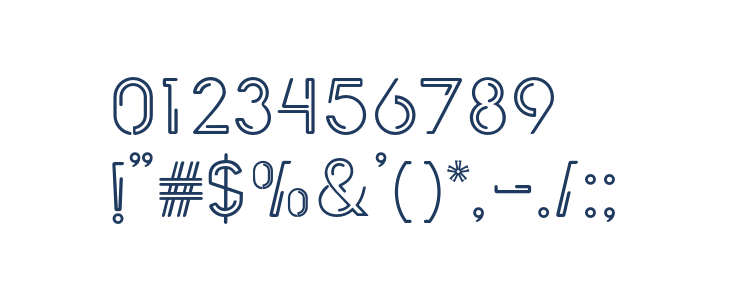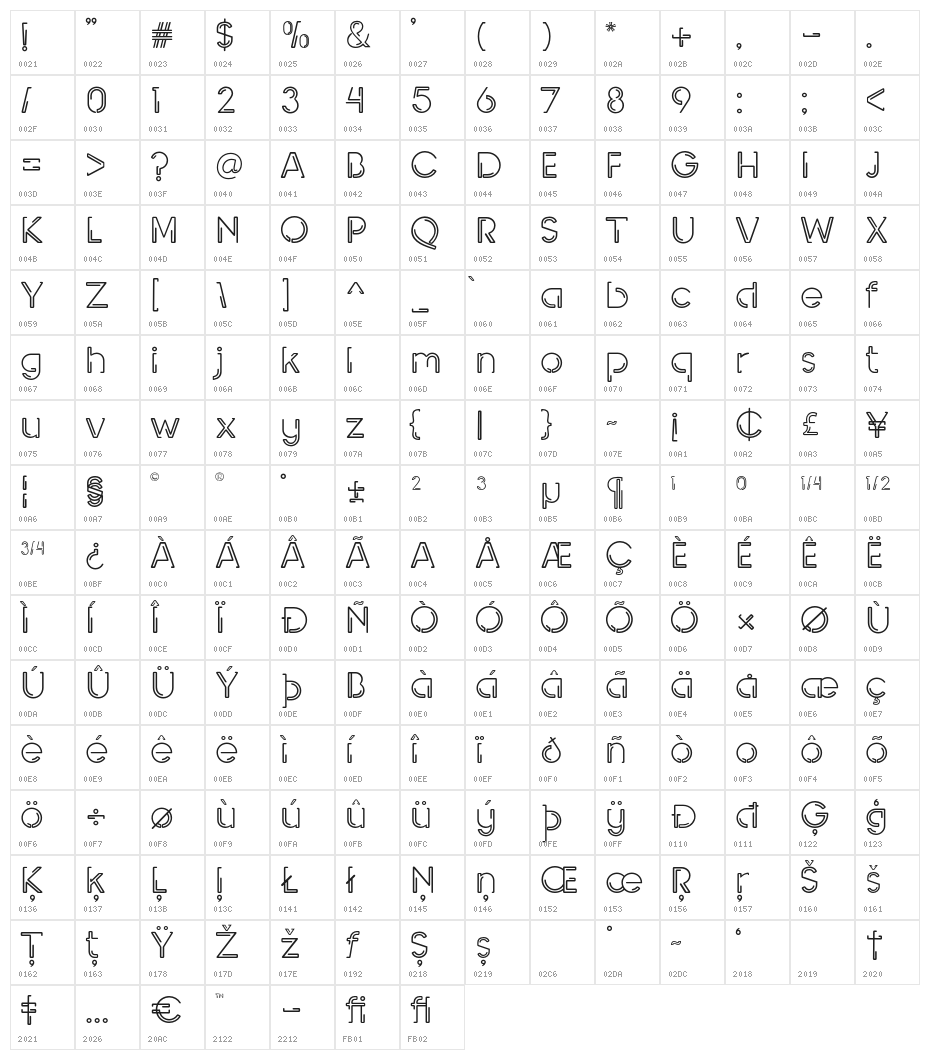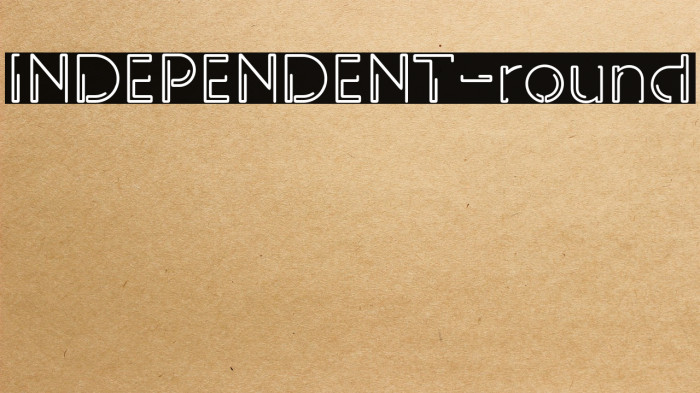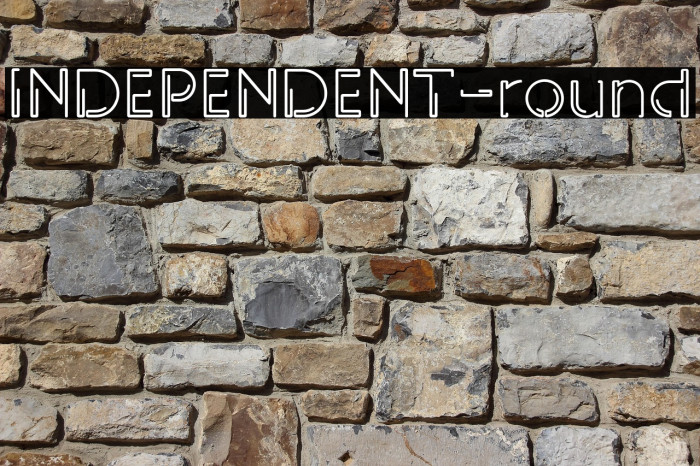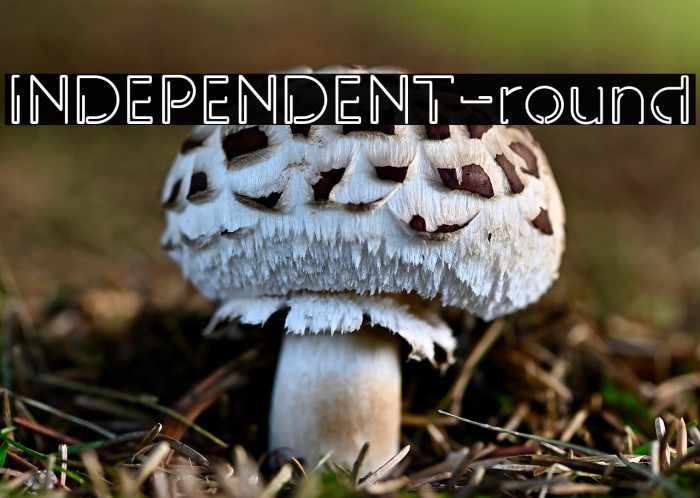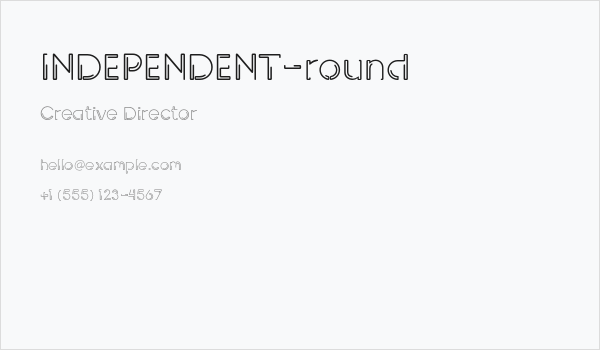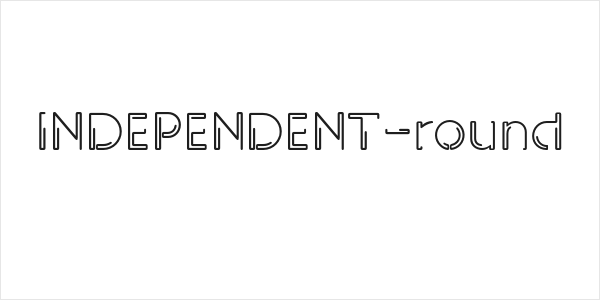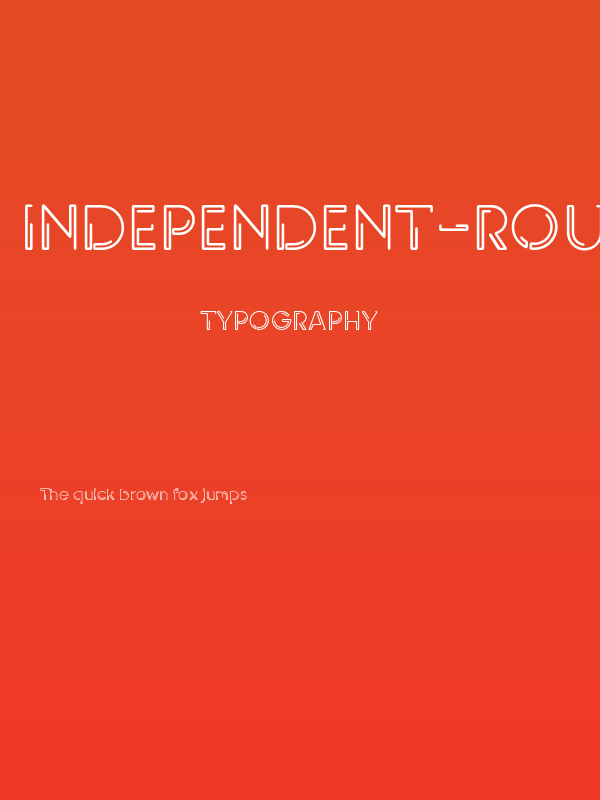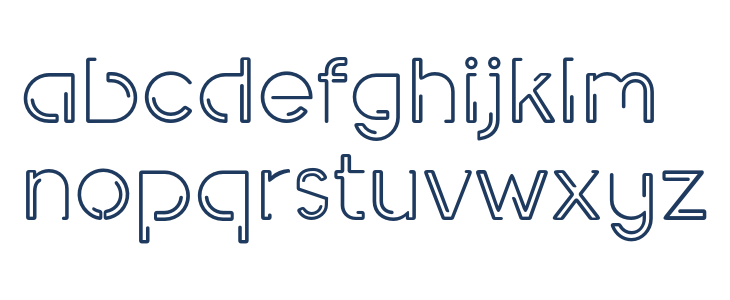
INDEPENDENT-round Font
INDEPENDENT-round Description
This font features a unique and modern design with a hollow, outlined style that gives it a distinct and contemporary appearance. The characters are constructed with clean, geometric lines and rounded edges, creating a sense of openness and clarity. The uppercase and lowercase letters maintain a consistent style, with a uniform stroke width that enhances readability. The numerals and special characters are designed to match the overall aesthetic, providing a cohesive look across all elements. This font's playful yet structured design makes it suitable for a variety of creative applications.